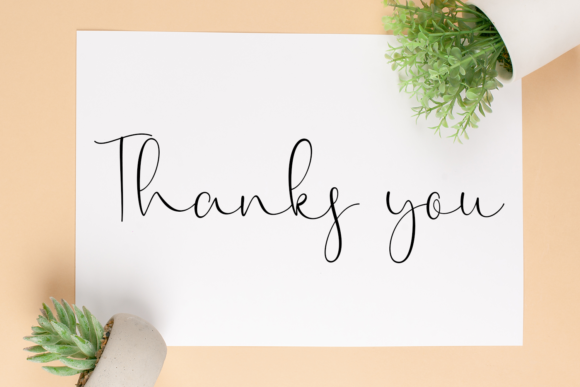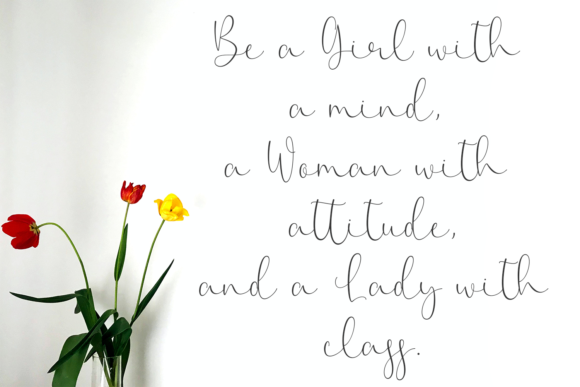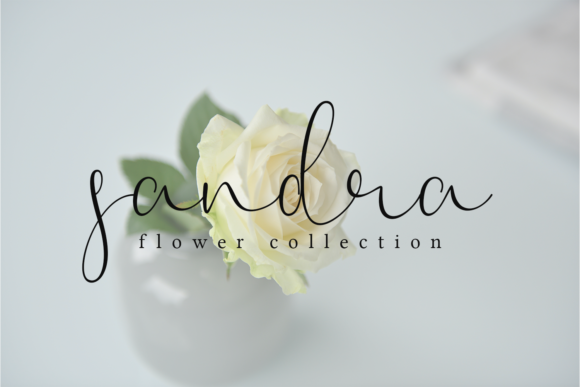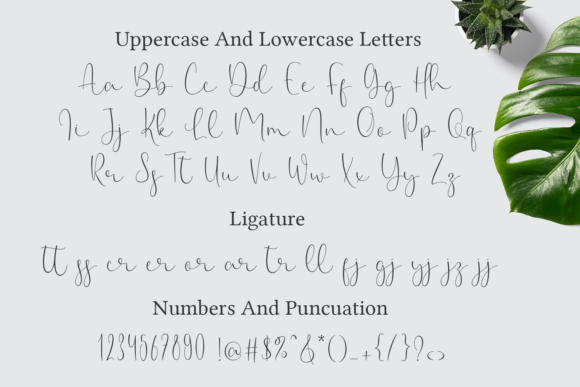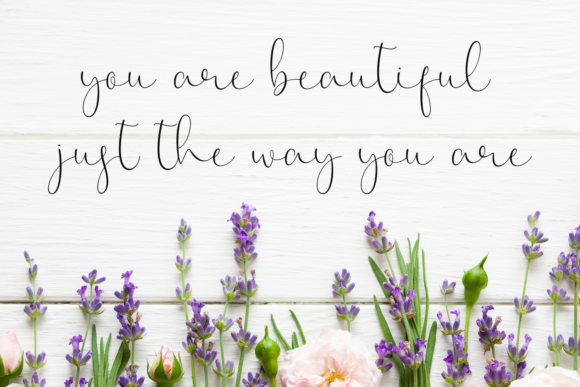
Dandelions Font: Elevate Your Designs with Elegance and Class
Are you looking for a font that adds a touch of sophistication and refinement to your designs? Look no further than Dandelions Font, a stunning thin lettered and dainty script font that exudes elegance and class. In this article, we’ll explore the features and benefits of Dandelions Font, and how it can elevate your designs to new heights.
What is Dandelions Font?
Dandelions Font is a beautiful and refreshing script font that is perfect for designers and crafters who want to add a touch of luxury to their work. This font is particularly crafted for those who need a elegant and refined look to their designs, making it ideal for a wide range of projects, from wedding invitations and stationery to branding and advertising materials.
Key Features of Dandelions Font
So, what makes Dandelions Font so special? Here are just a few of its key features:
- Thin lettered and dainty script font: Dandelions Font features a delicate and refined script style that is perfect for creating elegant and sophisticated designs.
- Elegant and classy look: This font is designed to add a touch of luxury and refinement to your designs, making it perfect for high-end branding and advertising materials.
- PUA encoded: Dandelions Font is PUA (Private Use Area) encoded, which means that you can access all of the glyphs and swashes with ease. This makes it easy to customize your designs and add your own personal touch.
Benefits of Using Dandelions Font
So, why should you choose Dandelions Font for your next design project? Here are just a few of the benefits of using this beautiful font:
- Adds elegance and sophistication to your designs: Dandelions Font is the perfect way to add a touch of luxury and refinement to your designs, making them stand out from the crowd.
- Versatile and flexible: This font is perfect for a wide range of projects, from wedding invitations and stationery to branding and advertising materials.
- Easy to use: Dandelions Font is PUA encoded, making it easy to access all of the glyphs and swashes and customize your designs.
Who is Dandelions Font for?
Dandelions Font is perfect for a wide range of designers and crafters, including:
- Graphic designers: If you’re a graphic designer looking for a elegant and refined font to add to your collection, Dandelions Font is a great choice.
- Stationery and wedding designers: This font is perfect for designers who specialize in creating beautiful stationery and wedding materials, such as invitations and place cards.
- Crafters and DIY enthusiasts: If you’re a crafter or DIY enthusiast looking for a beautiful font to use in your projects, Dandelions Font is a great choice.
In conclusion, Dandelions Font is a beautiful and elegant script font that is perfect for designers and crafters who want to add a touch of luxury and refinement to their work. With its thin lettered and dainty script style, PUA encoding, and elegant and classy look, this font is sure to elevate your designs to new heights. Whether you’re a graphic designer, stationery and wedding designer, or crafter and DIY enthusiast, Dandelions Font is a great choice for any project.